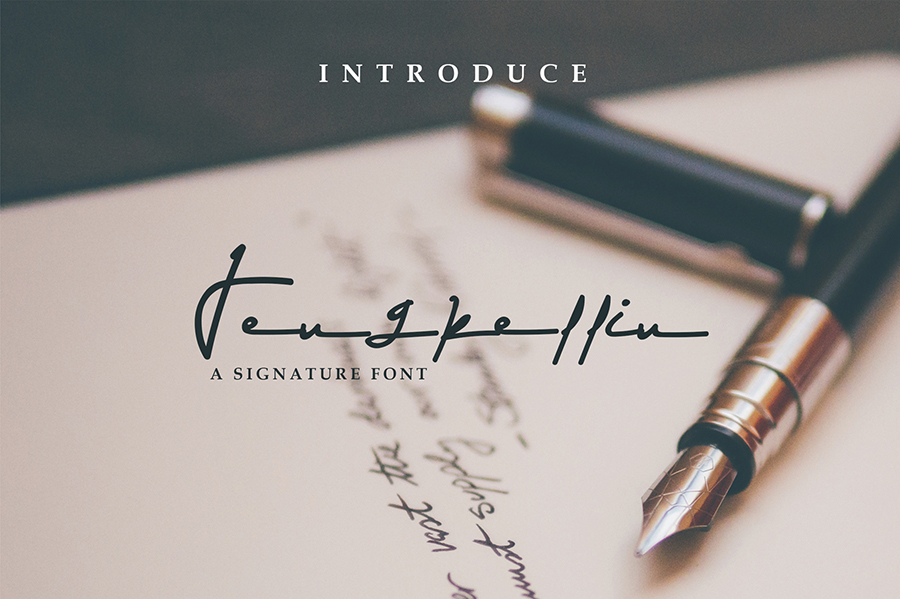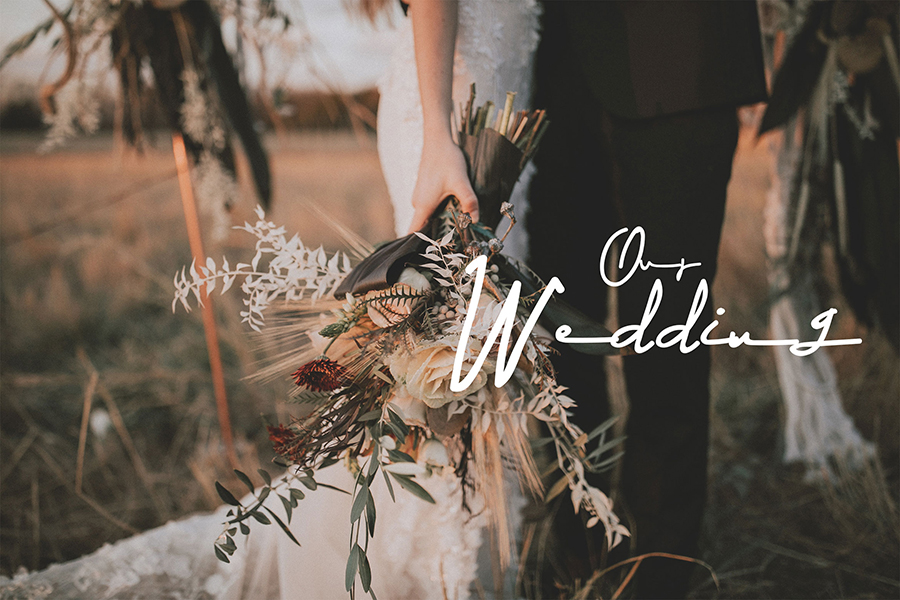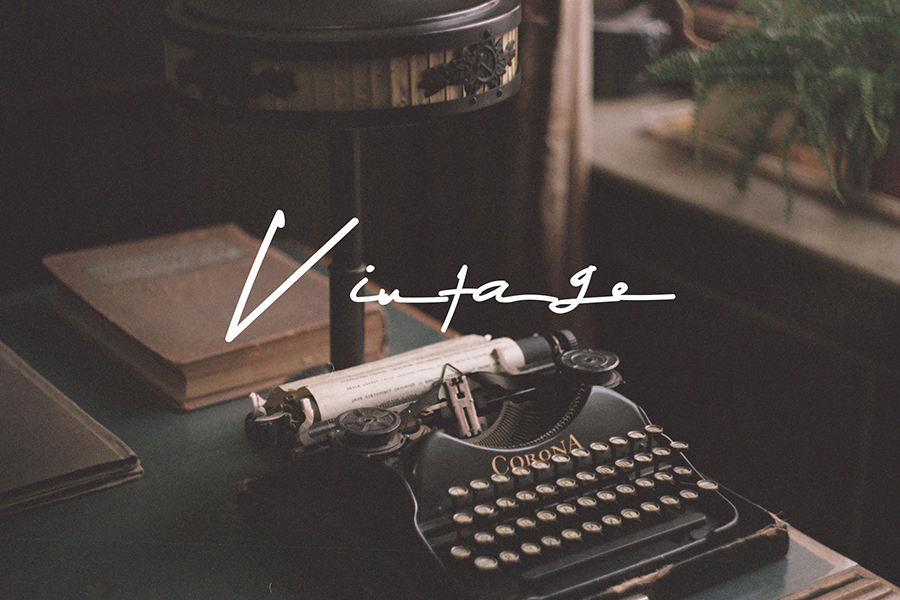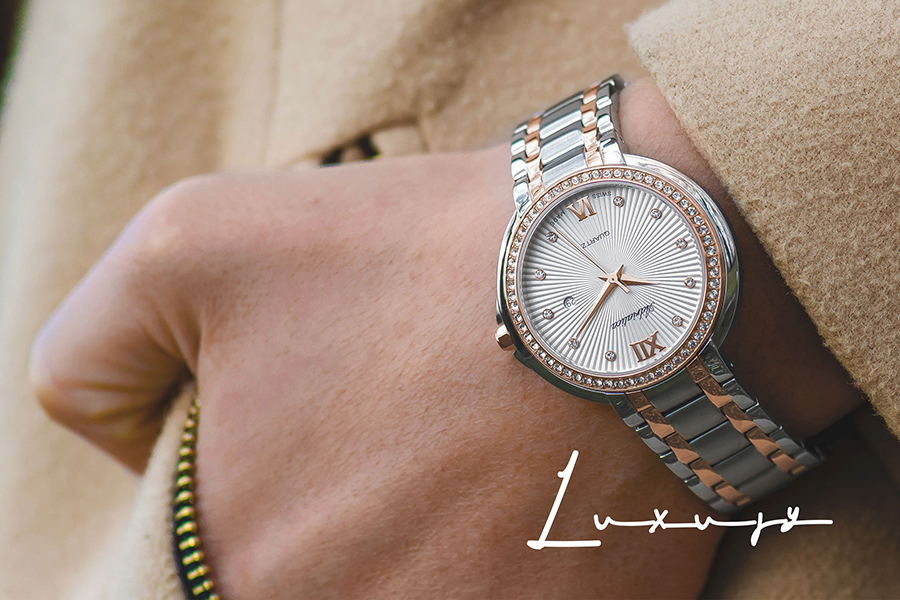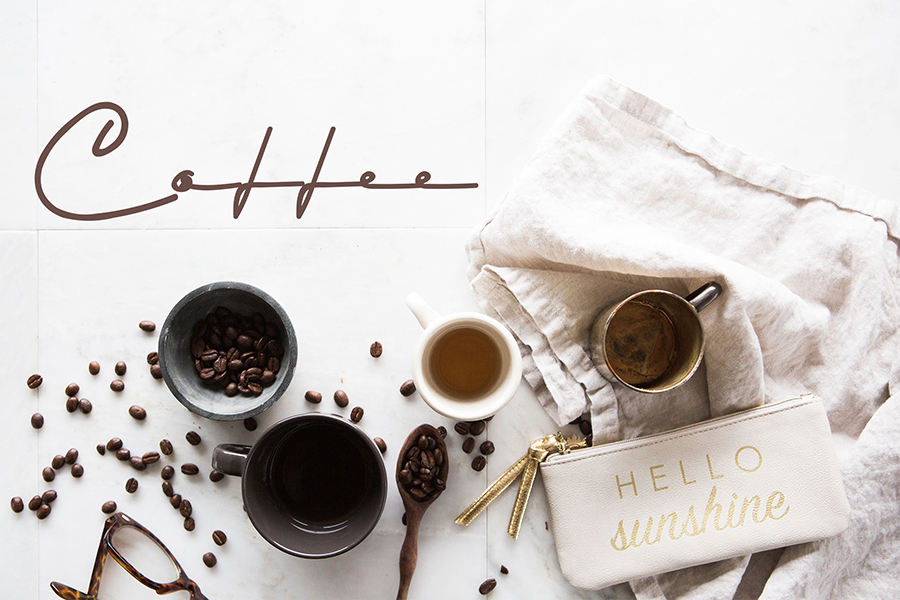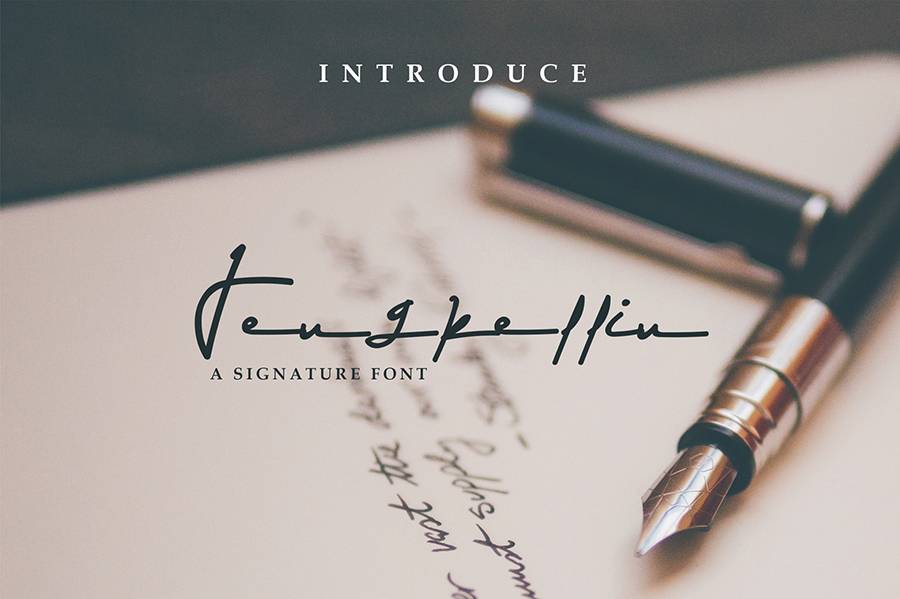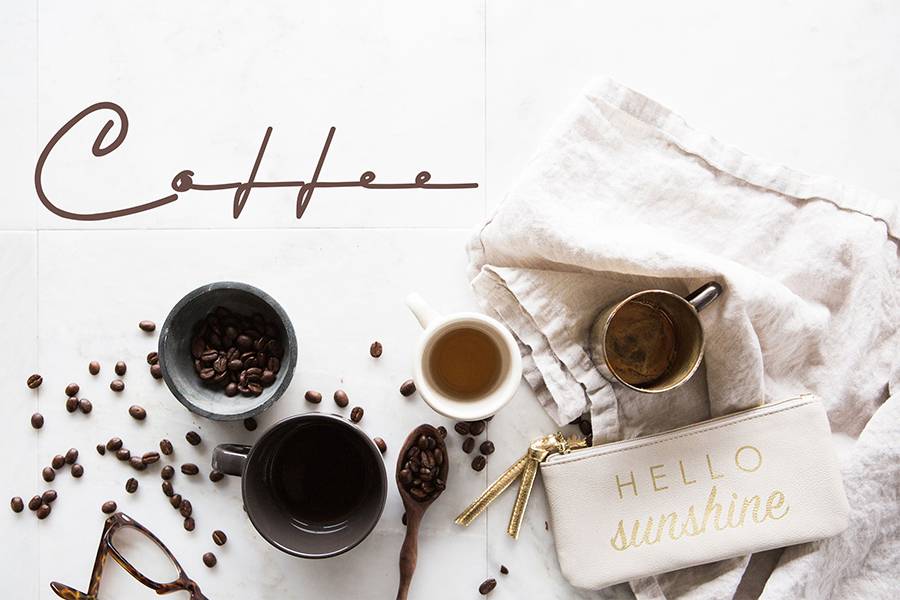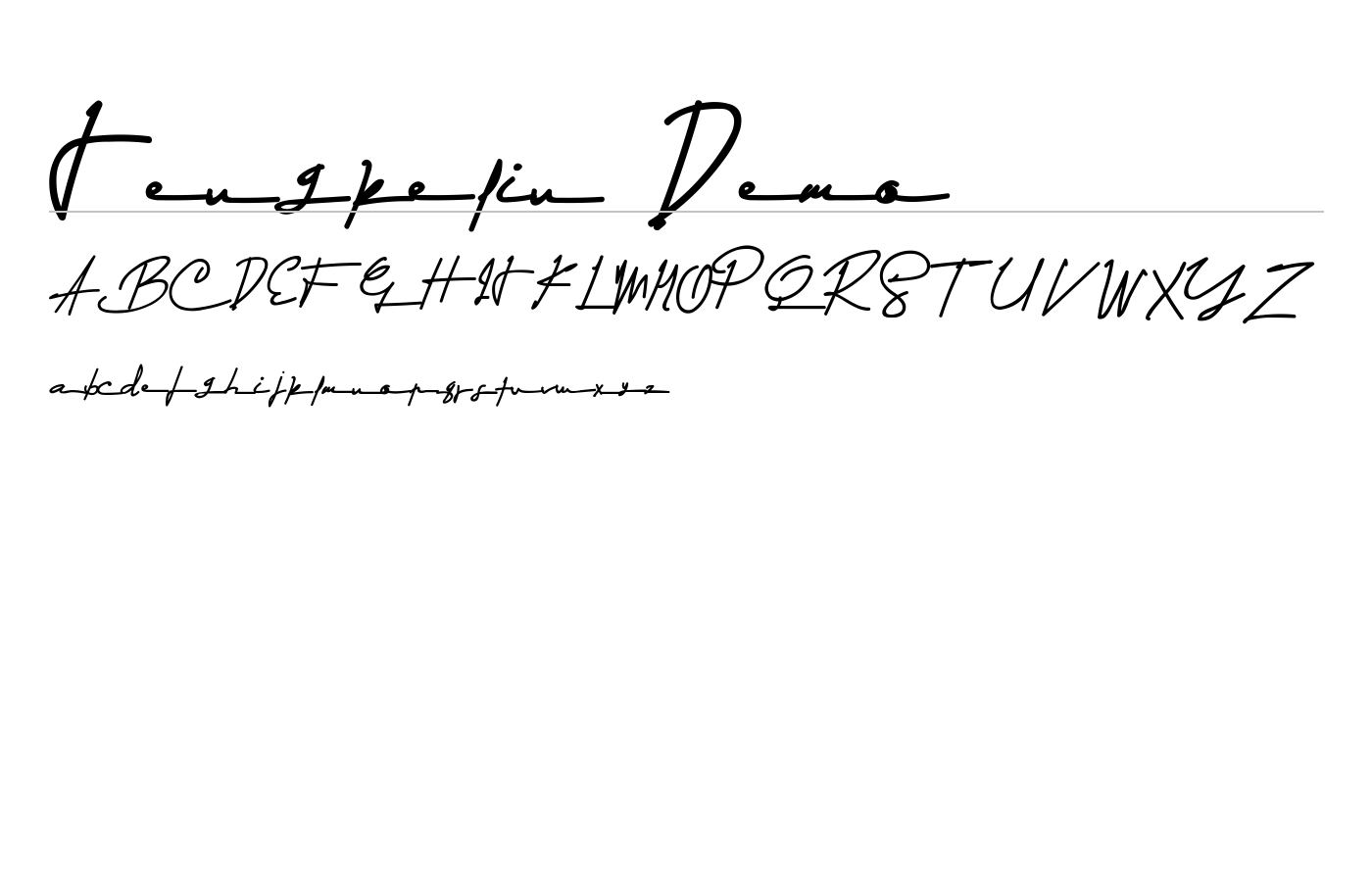
Jengkellin Signature Font
Jengkellin Signature Font is a handwritten style script font made with real handwritten characters. It is thin but comes with fine lines that make its identity. As you can see, this font can work well on branding, logo, headline, apparel design, prints, and other display purposes.